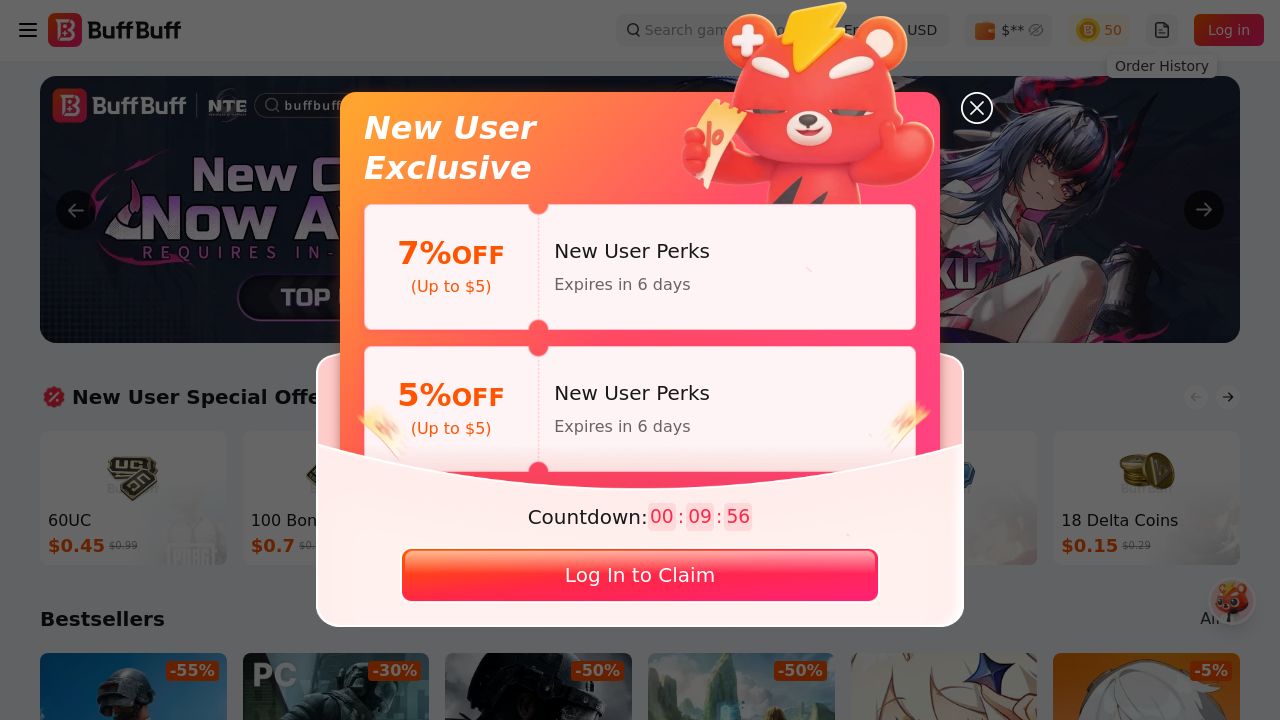
BuffBuff, a leading game top-up service for titles like PUBG and Free Fire, employs a distinct typographic palette that enhances its online presence. The primary font, Helvetica Neue, conveys a sense of clarity and efficiency, crucial for a site focused on fast and safe transactions. Complemented by Oswald and swiper-icons, the typography reflects a modern gaming aesthetic that resonates with a tech-savvy audience, ensuring a seamless user experience.
Buffbuff.com primarily uses Helvetica Neue, Oswald, and swiper-icons. Helvetica Neue is the main typeface, with Oswald adding a distinctive touch for headings.
Helvetica Neue offers a clean and legible design that works well for digital media. Compared to alternatives like Roboto, it maintains a more classic appeal while still being modern.
Buffbuff.com utilizes a weight of 400 for its primary fonts, ensuring consistency and readability throughout the site, which is essential for user trust.